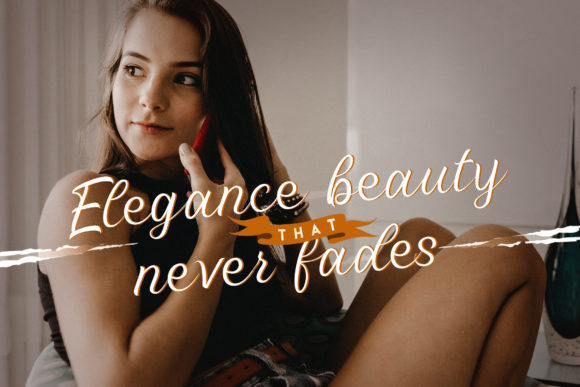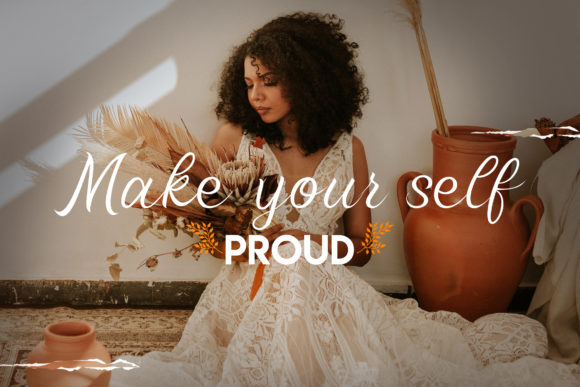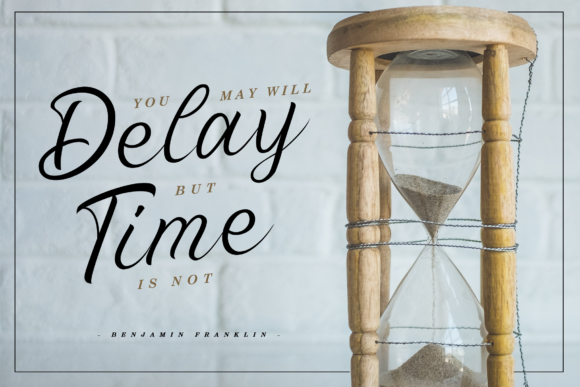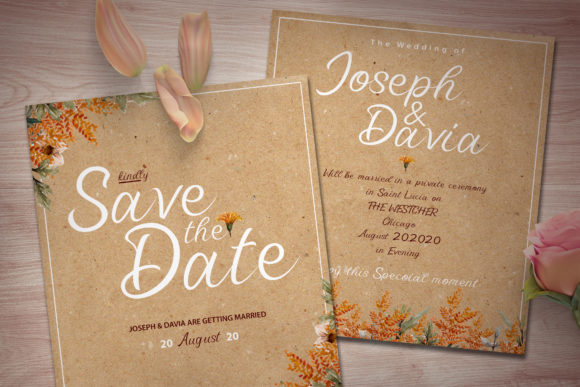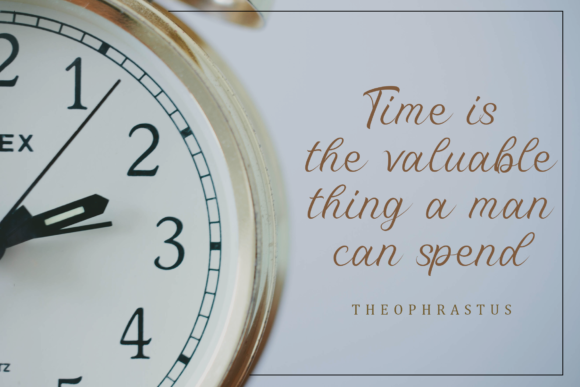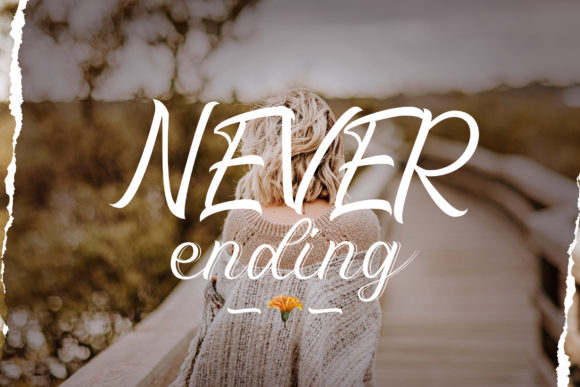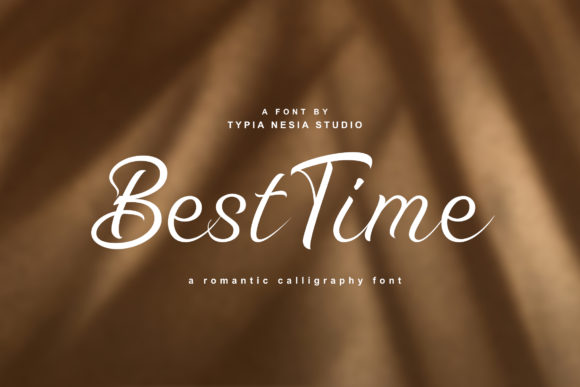
Discover the Best Time Font: Elevate Your Designs with Elegant Script
Are you a designer or crafter looking for the perfect font to elevate your projects? Look no further than the Best Time Font, a stunning script font that captures the essence of natural handwriting. In this article, we’ll dive into the world of Best Time Font, exploring its features, benefits, and uses, as well as provide tips on how to make the most of this beautiful typography.
What is Best Time Font?
Best Time Font is a beautiful script font inspired by natural handwriting. Its elegant and fluid strokes make it perfectly suited for a wide variety of projects, from wedding invitations and branding materials to social media graphics and digital art. This versatile font is designed to add a touch of sophistication and personality to your designs, making it an excellent choice for crafters and designers alike.
Key Features of Best Time Font
- Natural Handwriting Inspiration: Best Time Font is carefully crafted to mimic the imperfections and uniqueness of natural handwriting, giving your designs a personal and human touch.
- Elegant and Fluid Strokes: The font’s smooth and flowing strokes create a sense of movement and elegance, making it perfect for designs that require a touch of sophistication.
- Versatile and Adaptable: Best Time Font can be used for a wide range of projects, from formal and informal designs to digital and print materials.
- Easy to Read and Understand: Despite its script nature, Best Time Font is remarkably legible, making it an excellent choice for body text and headings.
Benefits of Using Best Time Font
So, why choose Best Time Font for your designs? Here are just a few benefits of using this beautiful script font:
- Adds Personality to Your Designs: Best Time Font brings a unique and personal touch to your designs, setting them apart from more generic and overused fonts.
- Enhances Visual Appeal: The font’s elegant strokes and natural inspiration create a visually stunning effect that captures the viewer’s attention.
- Perfect for Branding and Marketing Materials: Best Time Font is an excellent choice for logos, business cards, and other branding materials, as it adds a touch of sophistication and professionalism.
Tips for Using Best Time Font
To make the most of Best Time Font, here are a few tips to keep in mind:
- Pair with Complementary Fonts: Combine Best Time Font with simpler fonts to create visual interest and hierarchy in your designs.
- Experiment with Colors and Textures: Play around with different colors and textures to add depth and personality to your designs.
- Use for Headings and Titles: Best Time Font is perfect for headings and titles, where its elegant strokes and natural inspiration can shine.
Best Time Font in Action
So, what can you create with Best Time Font? Here are a few examples of how this beautiful script font can be used in different projects:
- Wedding Invitations: Add a touch of romance and elegance to your wedding invitations with Best Time Font.
- Branding Materials: Use Best Time Font for logos, business cards, and other branding materials to create a sophisticated and professional image.
- Social Media Graphics: Elevate your social media graphics with Best Time Font, creating eye-catching and engaging content that stands out from the crowd.
In conclusion, Best Time Font is a stunning script font that can elevate your designs and add a touch of elegance and personality. With its natural handwriting inspiration, elegant strokes, and versatility, this font is perfect for a wide range of projects. Whether you’re a designer or crafter, Best Time Font is an excellent choice for anyone looking to create beautiful and engaging designs.